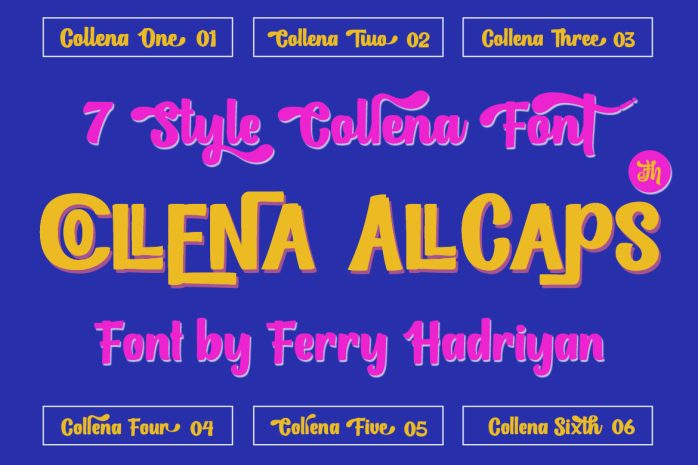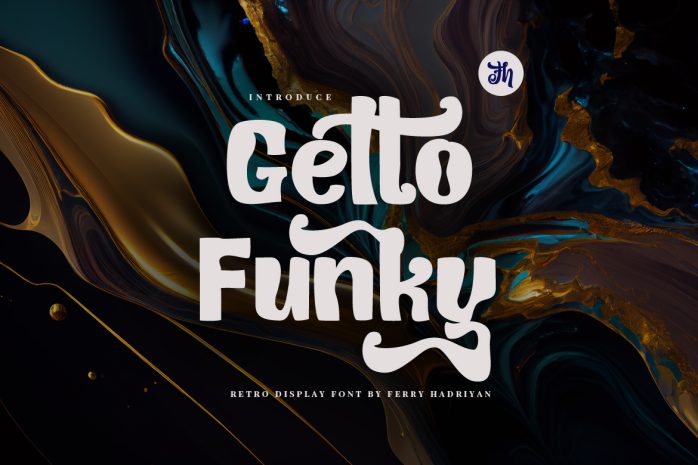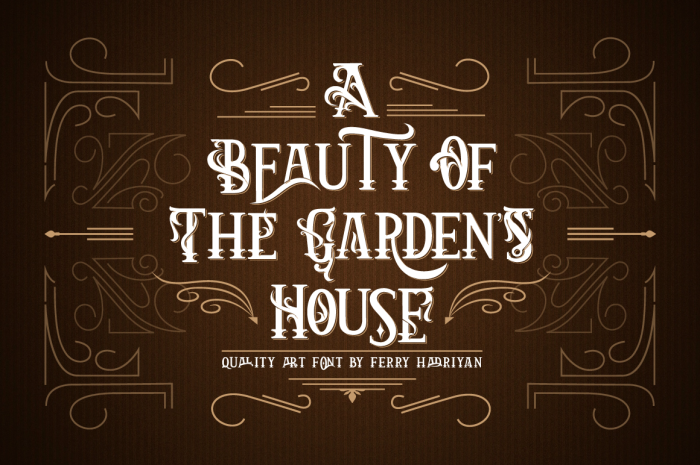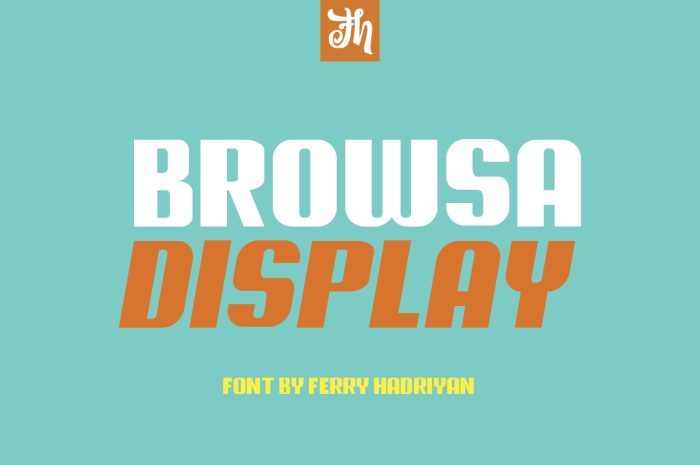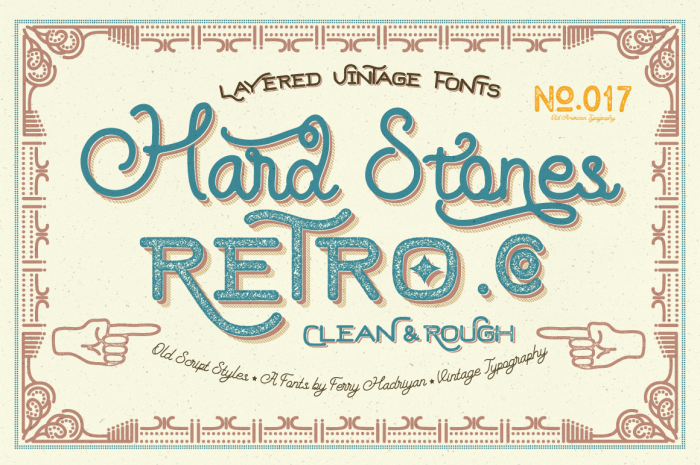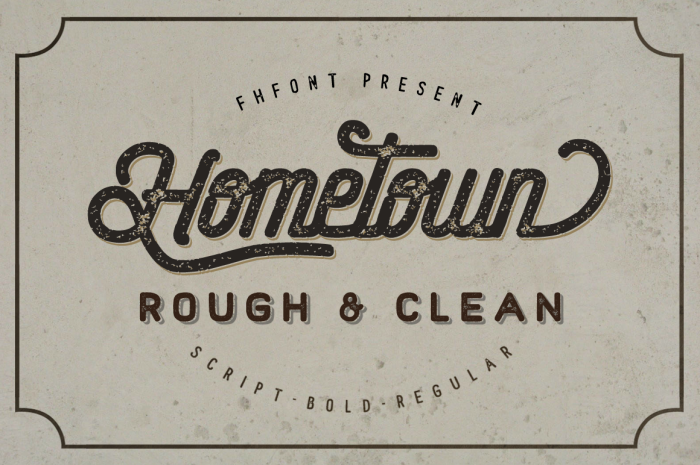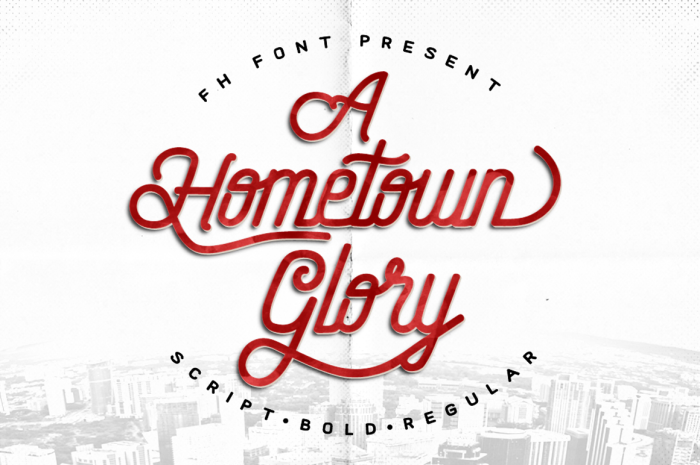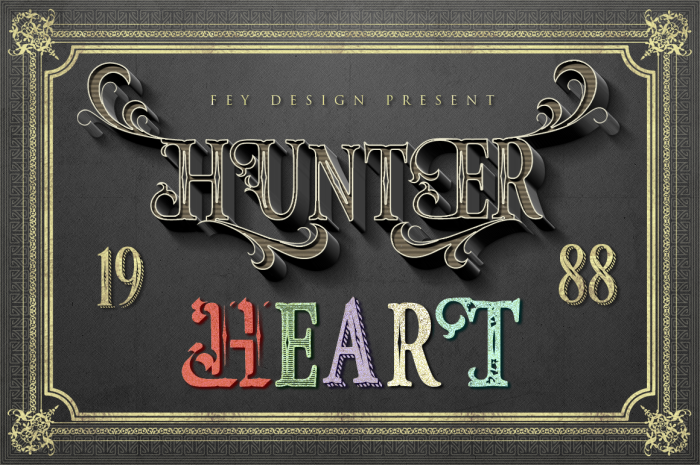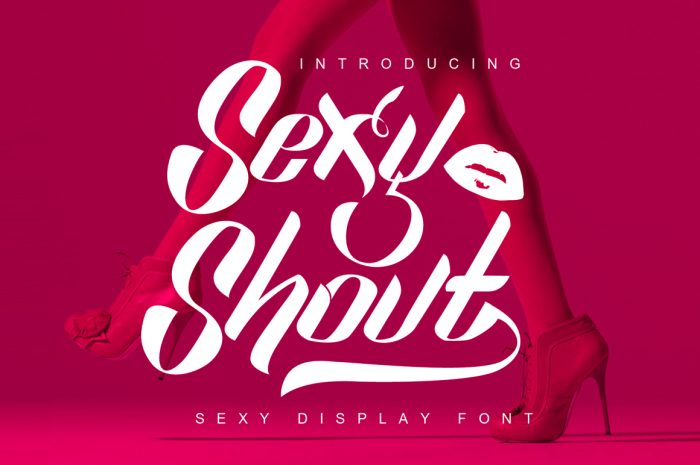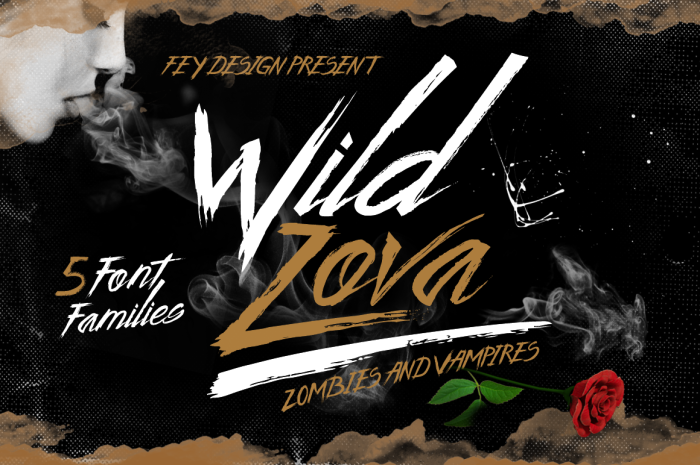
Display font required for titling text of layout design, title of film, title of poster, magazine, cover album, advertising, and another creative design. There are 12 best display font from fhfont studio:
1. Arthouse Display Font
Arthouse is a display font with a vintage art style, arthouse font characteristic is a serif font, with vintage ornament and many feature opentype.
2. Browsa Display Font
Browsa is display font with block head wood style, bold font with slant or italic font. Browsa font characteristic modern font, or can use vintage style.
3. FH Collena Font
FH Collena is vintage script and display font with fun retro style, include 6 font script and 1 font display (All Caps), with swashes on OpenType feature include of the font.
4. FH Getto Funky
Getto Funky is a display font with a fun retro style, with swashes on the opentype feature included in the font.
5. Hard Stones Font
Hard stone font is display and script font has vintage style, there are clean font and rough font, characteristic texture font, basically ornament suitable for design in vintage or retro style.
6. Hometown Clean Font
Hometown font characteristic basically from monoline block of glyphs, as old ornament vintage with a modern and simple touch. This font pack includes Script, Sans Regular, Sans Bold, Catchword Decorative font, Hometown Family font with vintage style.
7. Hometown Rough Font
Hometown font characteristic basically from monoline block of glyphs, as old ornament vintage with a modern and simple touch. This hometown rough has a characteristic texture font, basically ornament suitable for design in vintage or retro style.
8. Hunter Heart Font
Hunter heart font characteristic basically from serif font, so many style of hunter heart font, pop shadow, grunge, stripe line, rough, clean, and many more.
9. Sexy Shout Font
Sexy shout font is a display font designed for sexy touch glyphs character, there are any sexy decorative of font.
10. Shakila Font
Shakila font is decorative handdrwan and handlettering font, as a display font suitable for fancy font.
11. Wild Zova Font
Wild zova is a brush font style, has made from dry brush marker and ink combination, with messy and grunge style.